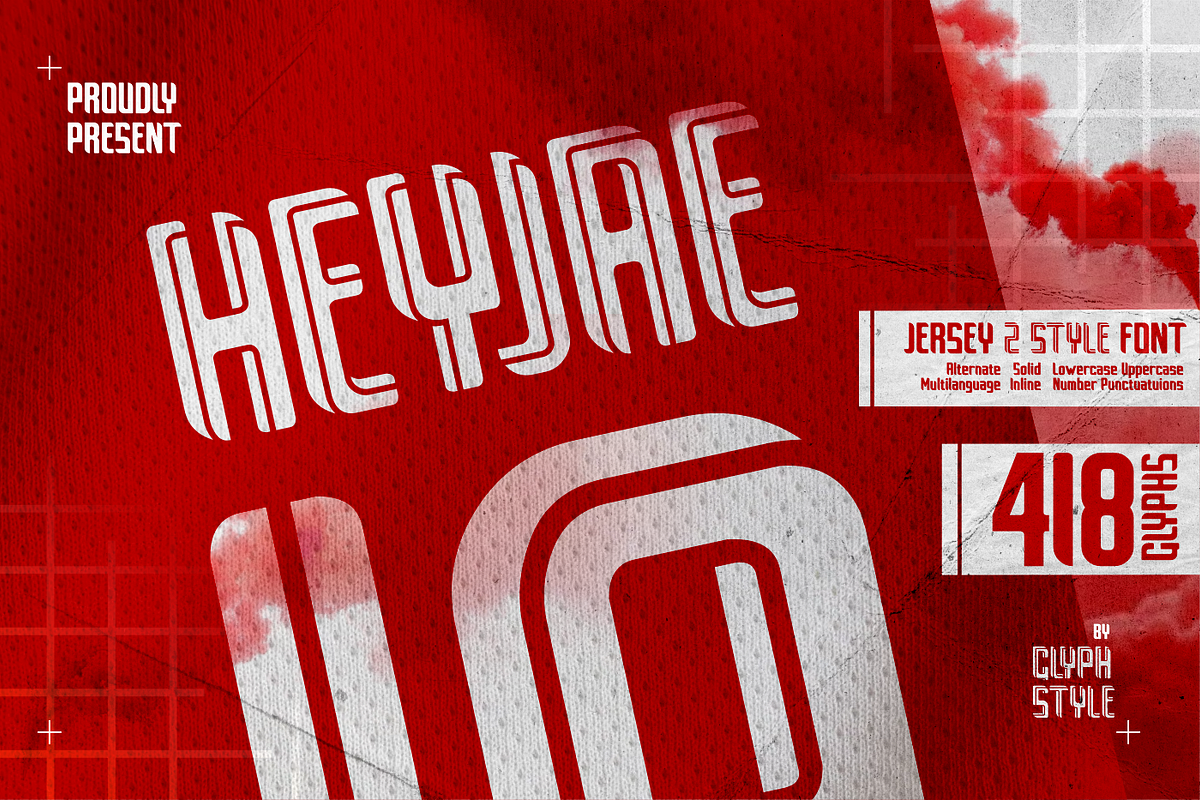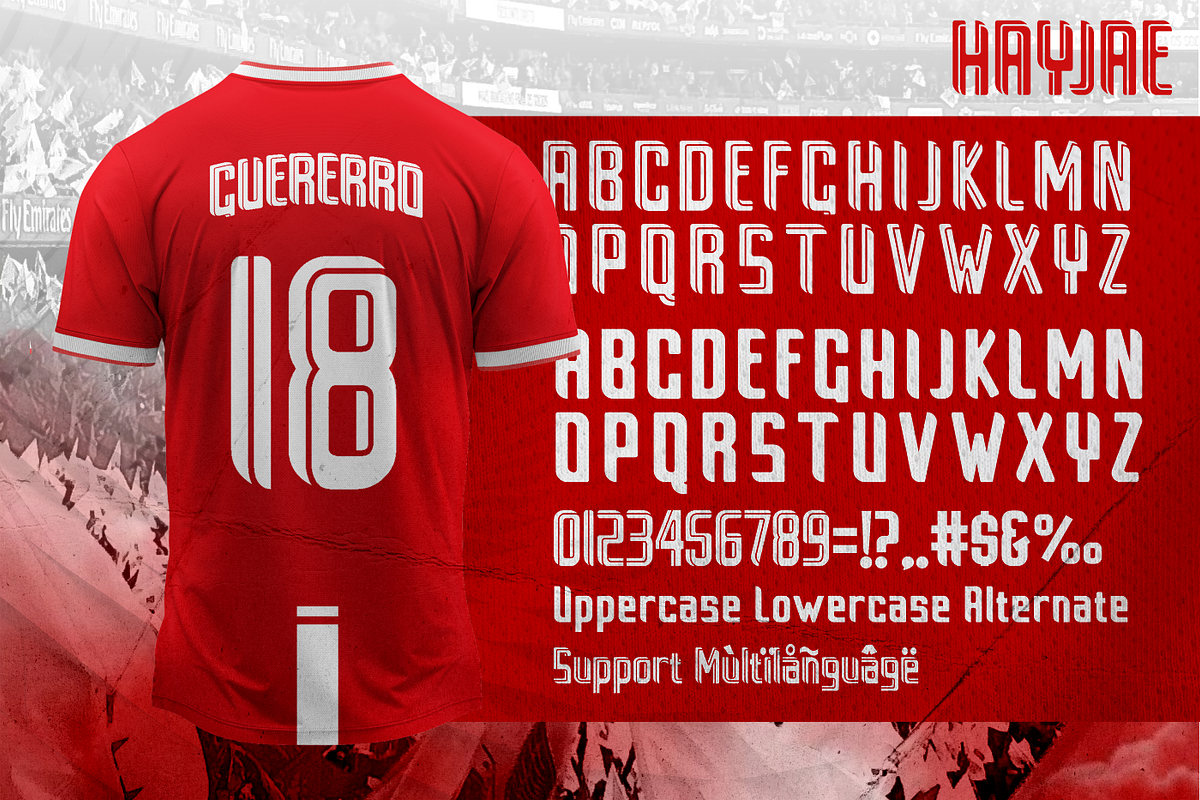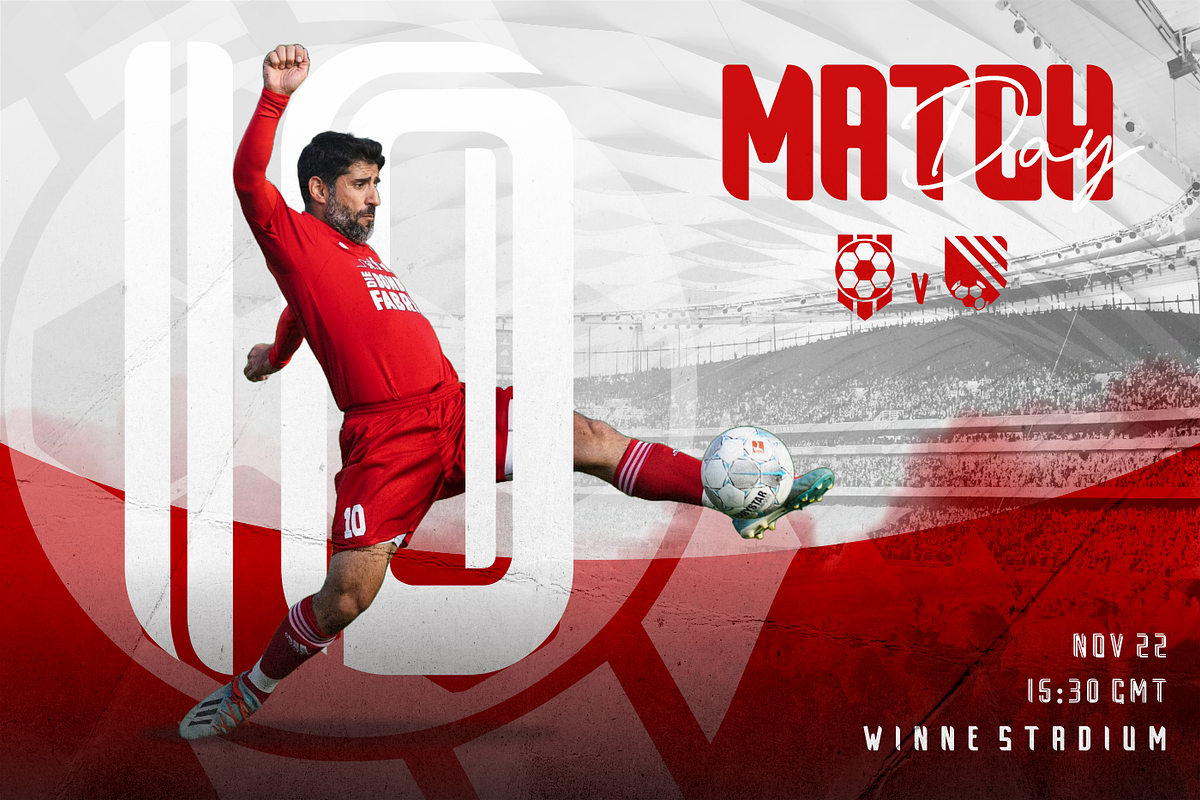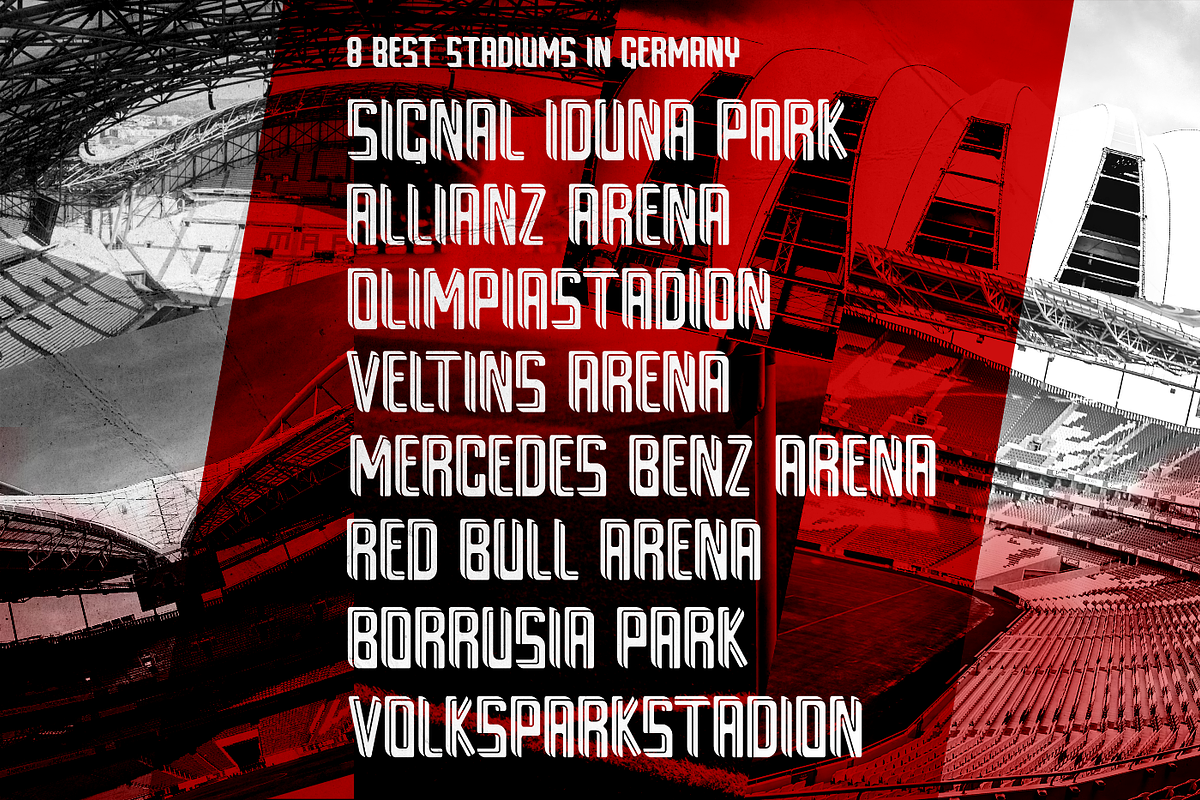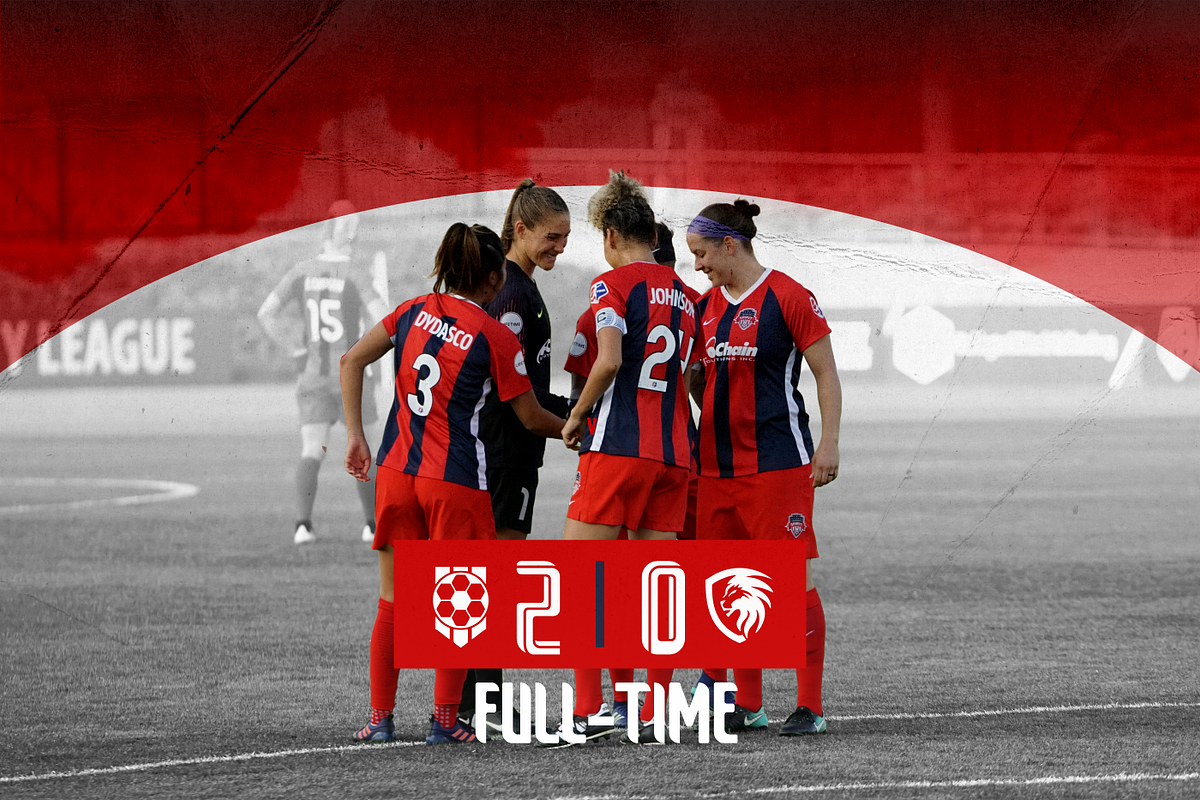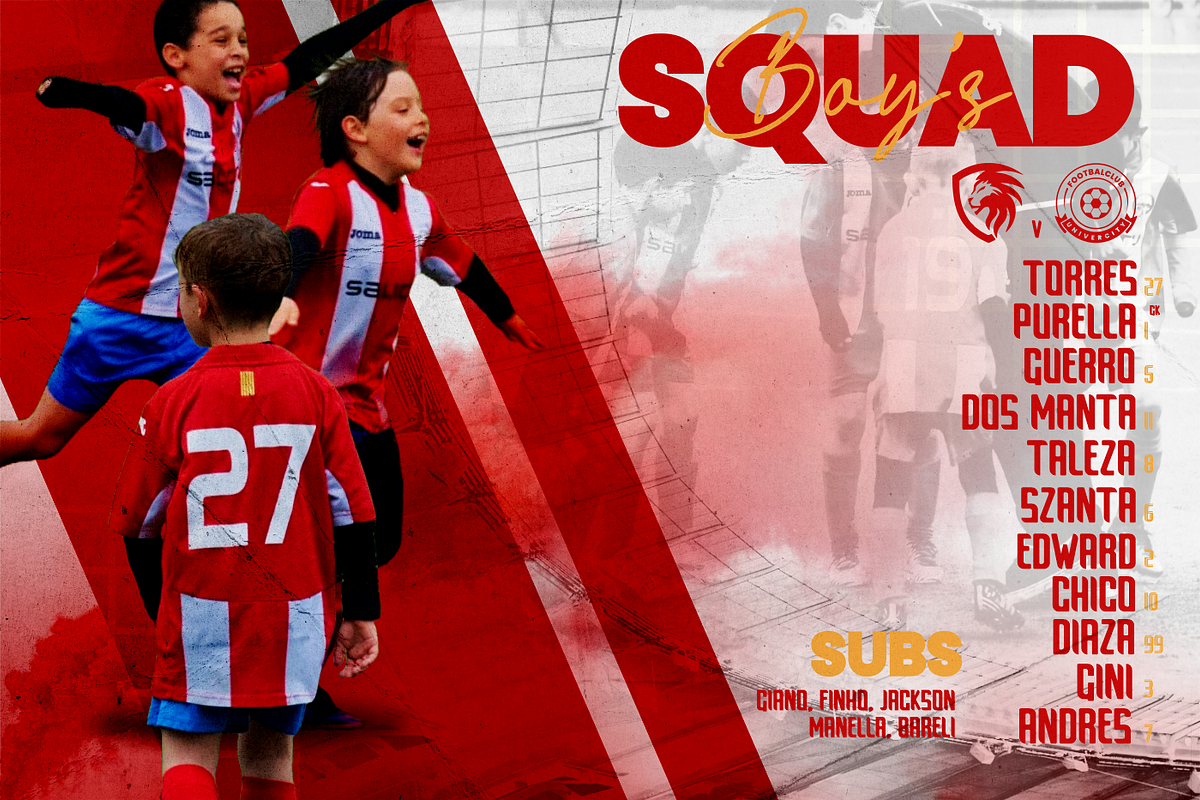
Heyjae Jersey
Heyjae is a sans serif display font, with a sports theme commonly found in jersey designs or other football themes. Available in 2 styles, inline and regular or solid
Heyjae is perfect for branding projects, logos, wedding designs, social media posts, advertisements, product packaging, product designs, labels, photography, watermarks, invitations, stationery, and any project that requires a sense of jersey/sport font.
Uppercase, Lowercase, Numerals & Punctuations, Alternate, Multilanguage